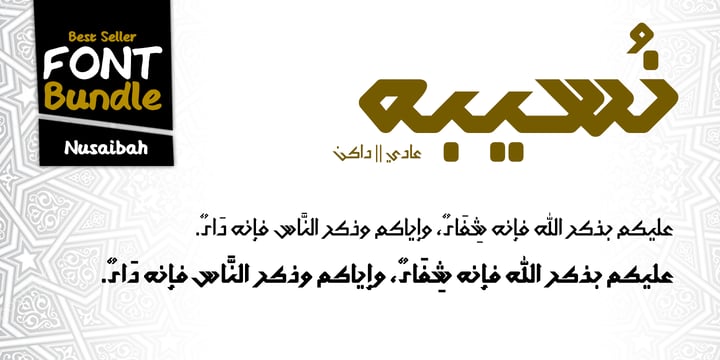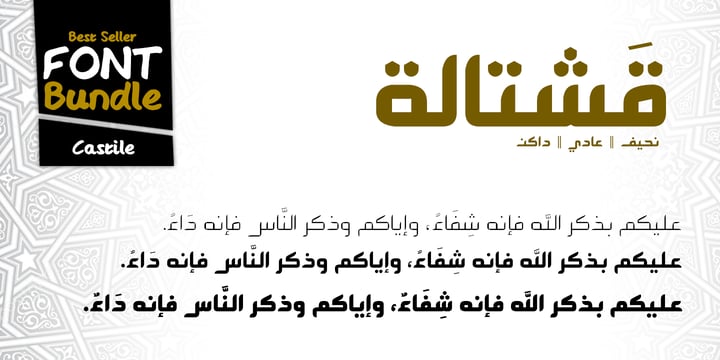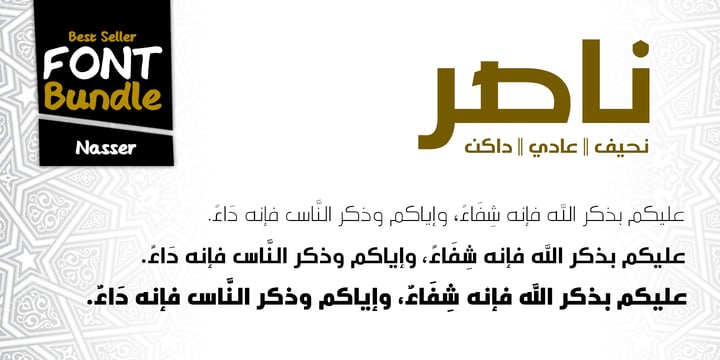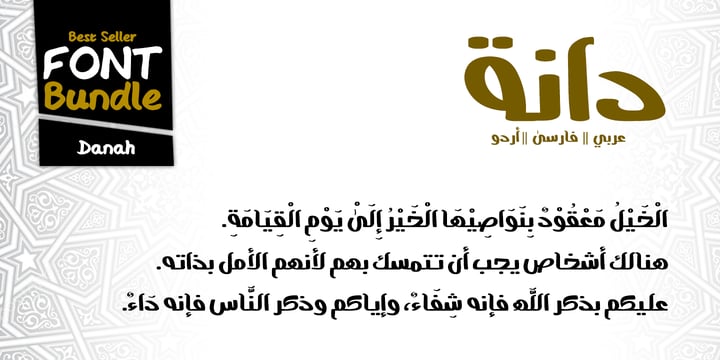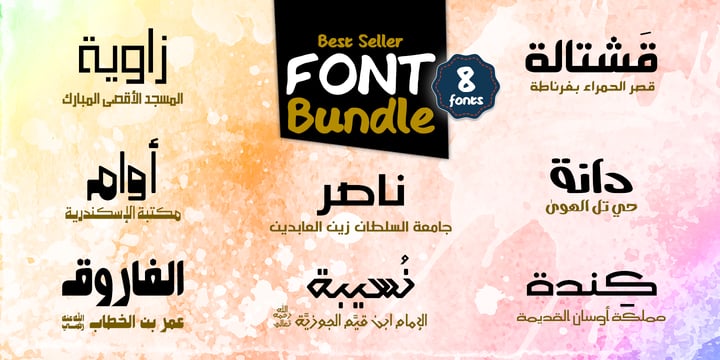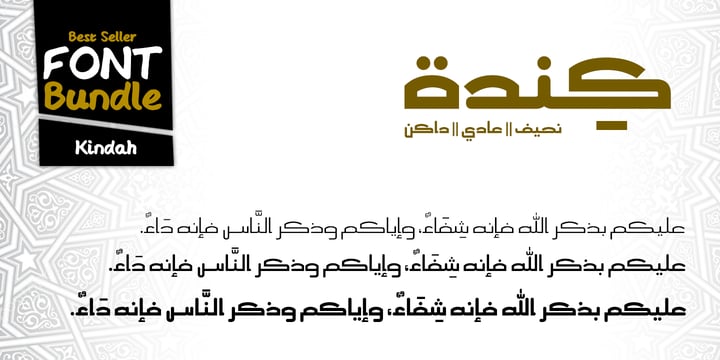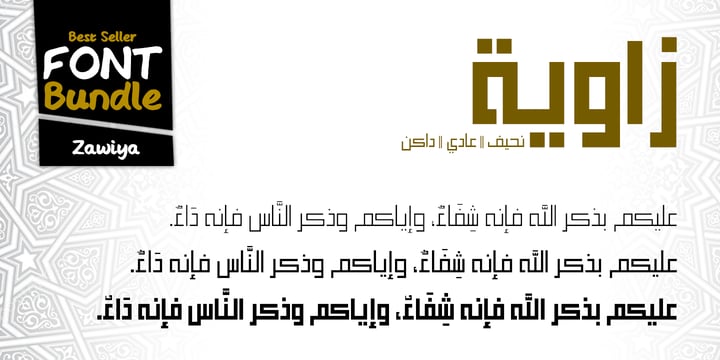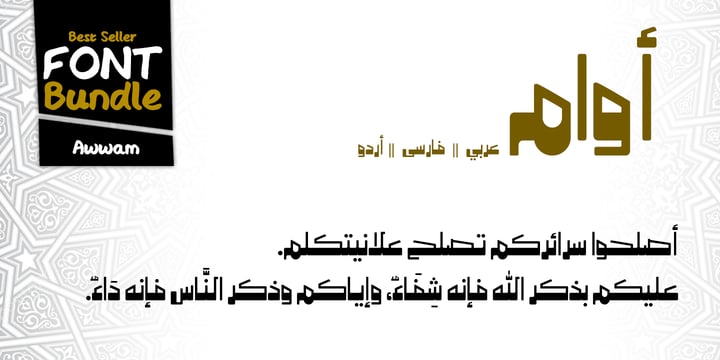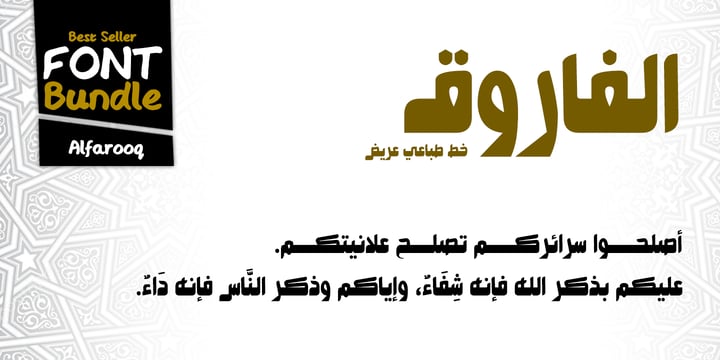
Special Arabic Persian Urdu Fonts Bundle
This bundle contains awesome 8 main Typefaces with versatile 19 Fonts or styles which can be used in diverse artistic, typographic, and publishing works. The bundle contains typefaces which can be used in multiple languages including Arabic, Urdu, and Persian. You can use some of these types for titles and headlines, others for scripts, and others for your web designs either a scalable vector graphics or a pixel-based raster graphics such as logos and posters. The bundle also contains different weights for some of the included fonts. All in all, this collection of Arabic, Persian, and Urdu fonts is designed to elevate your designs, whether you're focused on high-end branding, sleek logo creation, or eye-catching editorial layouts. Each typeface prioritizes readability and visual impact, making them a vital part of your font collection. Enjoy this special bundle.